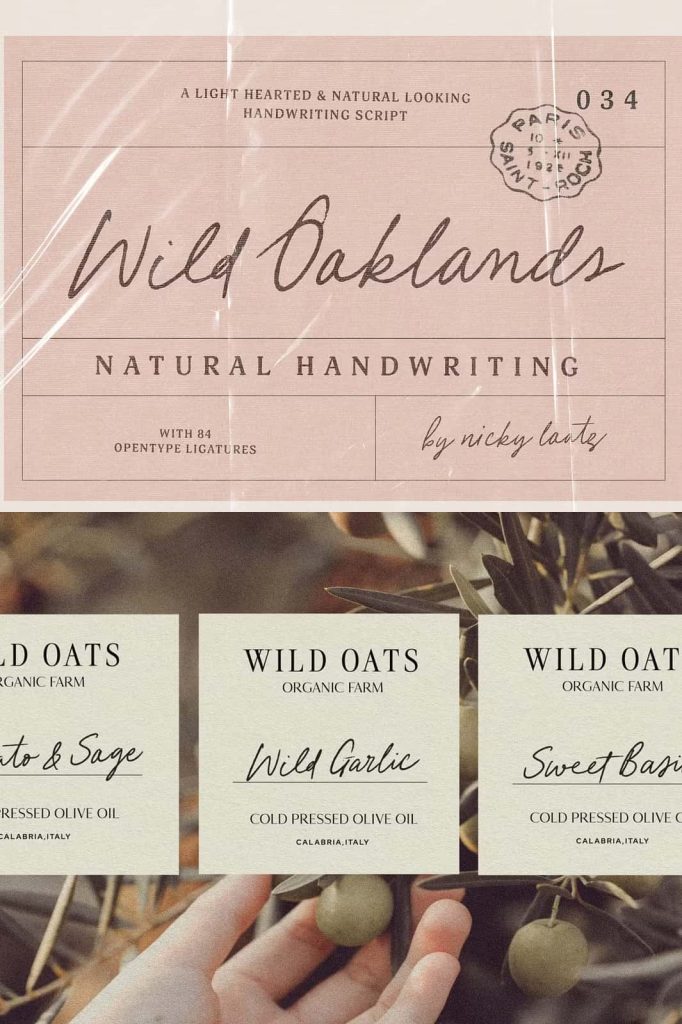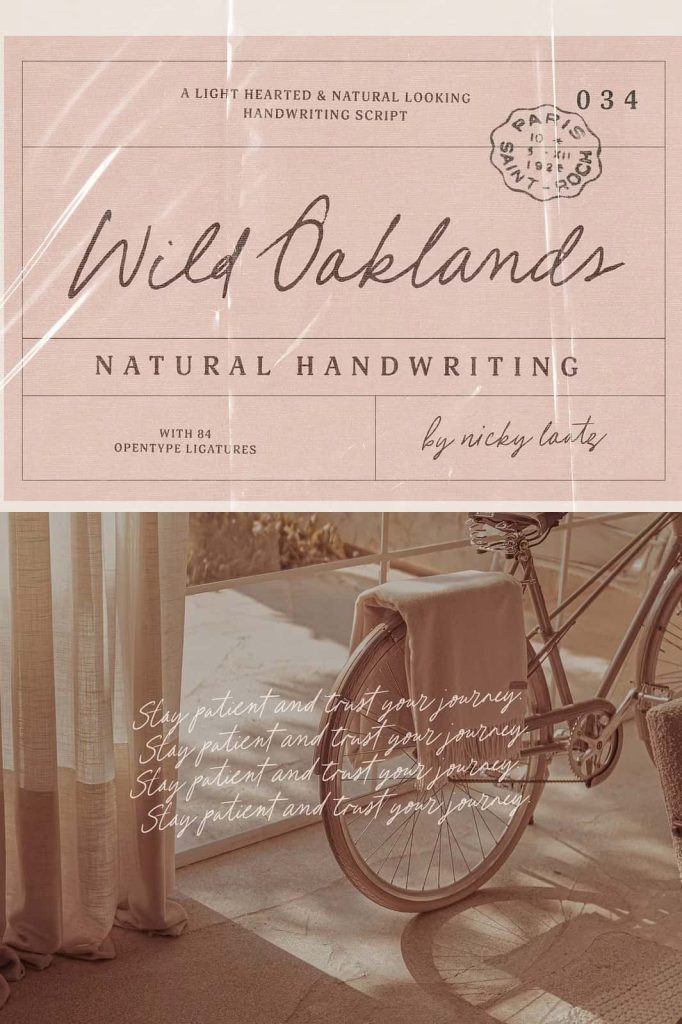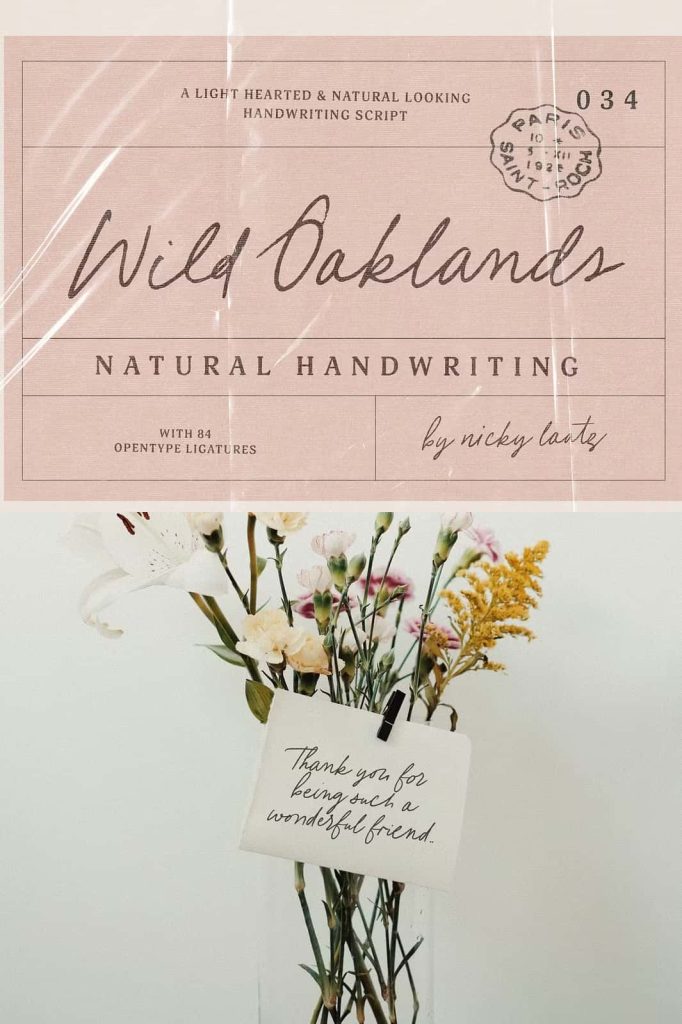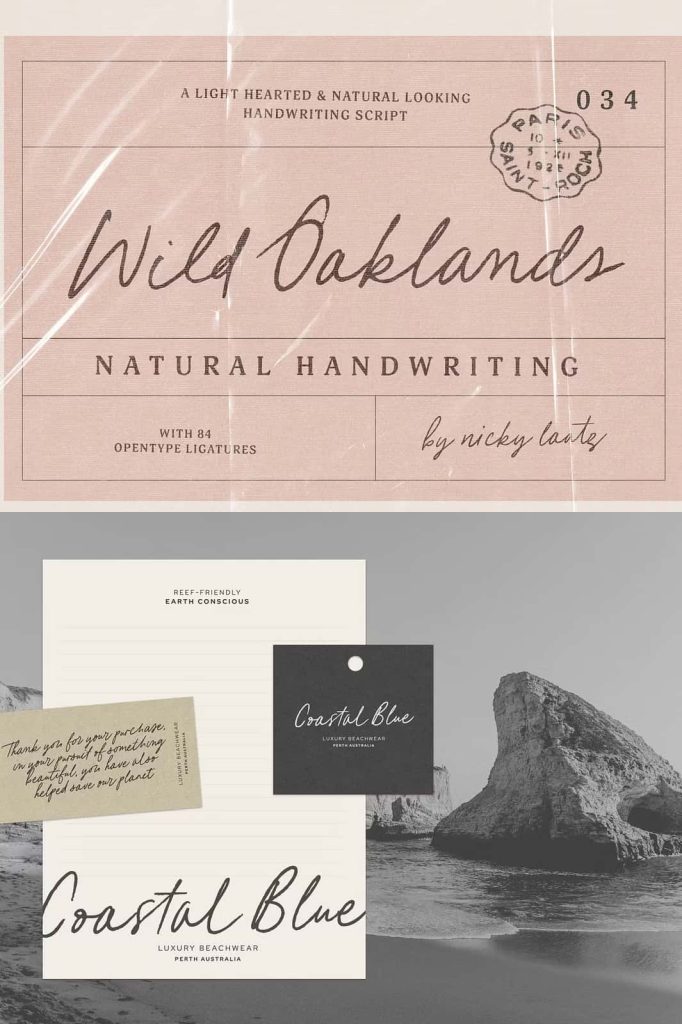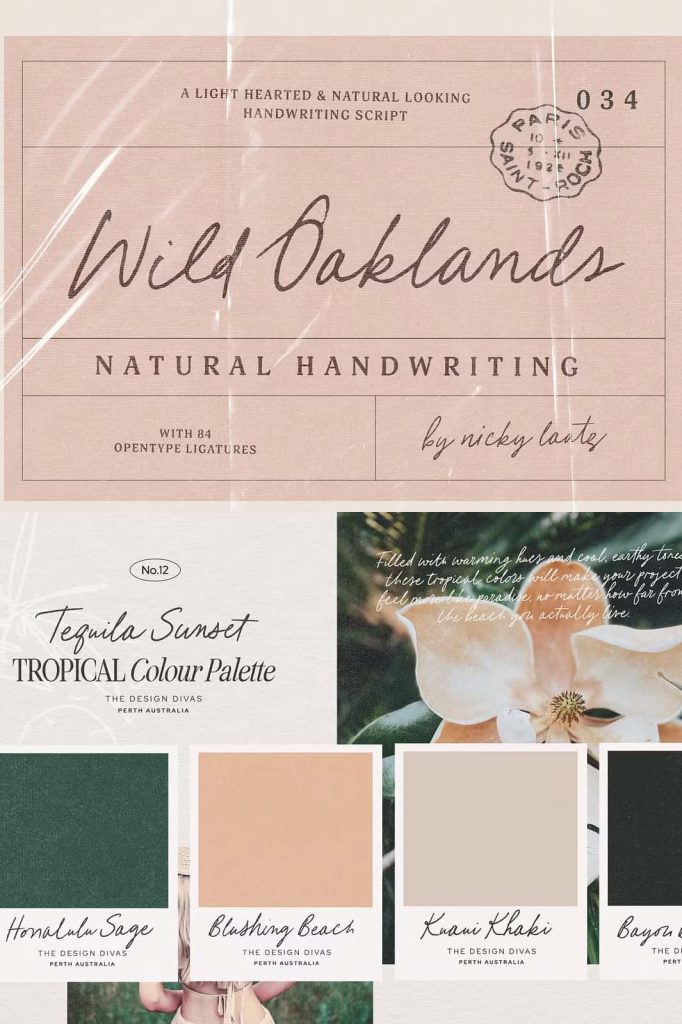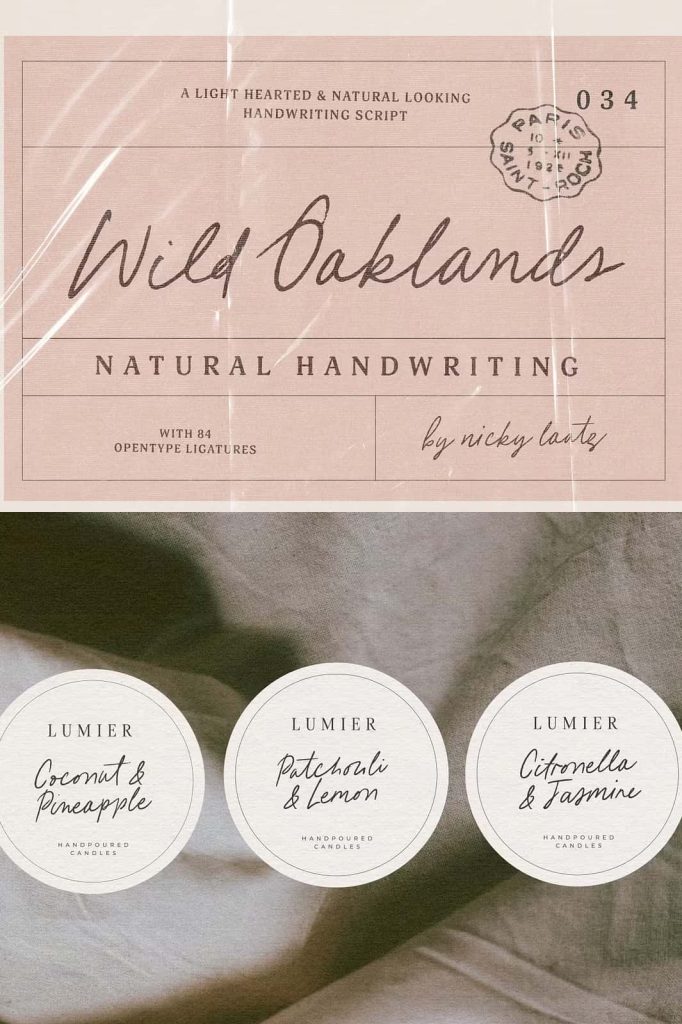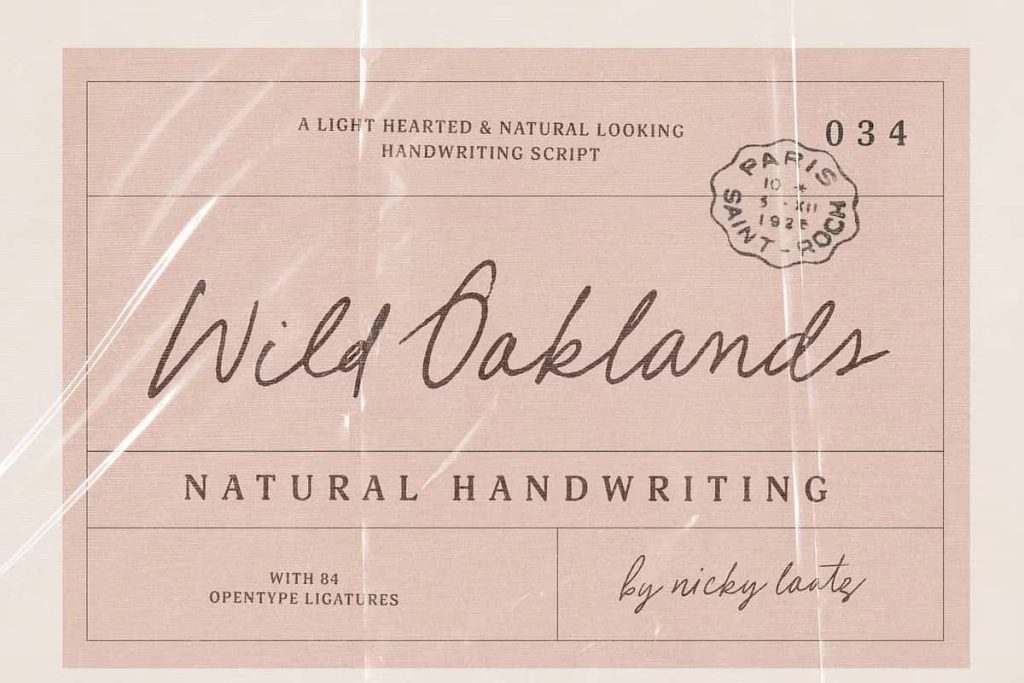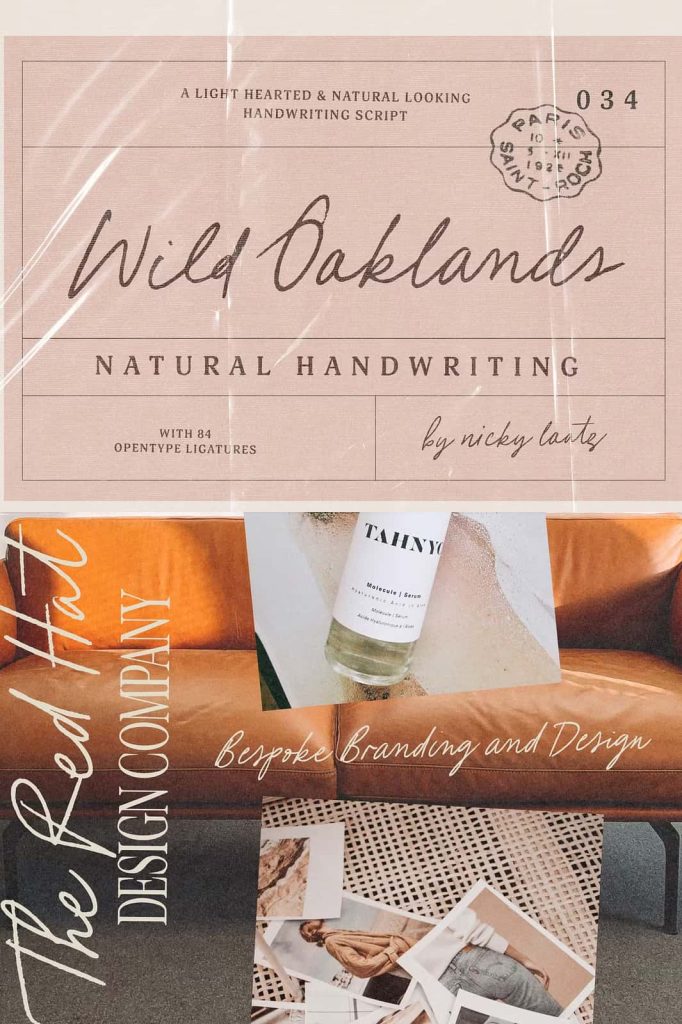
Wild Oaklands Font – A Natural, Handwritten Script with Authentic Inky Character
Wild Oaklands Font is a beautifully imperfect handwritten script that captures the natural flow and rhythm of authentic handwriting. Designed to feel organic, expressive, and personal, this typeface brings a handcrafted charm to every creative project. With its inky texture and 84 carefully crafted OpenType ligatures, Wild Oaklands goes beyond being just a font—it becomes a reflection of genuine handwritten emotion. Whether you’re creating branding, stationery, or digital art, this script typeface gives your design a natural, heartfelt character that stands out.
Bring Natural Handwriting to Life
There’s something timeless and emotional about the look of real handwriting, and Wild Oaklands captures that perfectly. The designer’s goal was to recreate the feeling of pen on paper—carefree, spontaneous, and unfiltered. The result is a script font that feels alive, full of movement and expression. Its slightly uneven strokes and inky textures create visual interest, making it ideal for projects that demand authenticity and warmth.
Unlike mechanical or over-polished fonts, Wild Oaklands celebrates imperfection. Its organic curves, varied stroke widths, and subtle irregularities bring an unmistakable human touch to your work. Every letter flows naturally into the next, giving the illusion of continuous, effortless handwriting. It’s this level of authenticity that makes Wild Oaklands a powerful tool for designers seeking a genuine, handcrafted aesthetic.
Designed for Authenticity and Creative Freedom
Wild Oaklands Font was built with creative freedom in mind. It features 84 OpenType ligatures that automatically replace letter pairs with more natural alternatives. This means that as you type, the font dynamically adjusts to mimic real handwriting patterns—making your text look like it was written by hand rather than digitally produced. Simply ensure that your design software’s “ligatures” feature is turned on, and watch as Wild Oaklands transforms your words with effortless authenticity.
The inky, handcrafted quality of the strokes makes Wild Oaklands versatile and expressive. It works beautifully for branding that wants to appear approachable and artistic, for invitations that need a personal touch, and for quotes or social media posts that require warmth and creativity. It’s also ideal for packaging, lifestyle products, and blog headers that embrace a natural, organic aesthetic.
A Handwritten Script with Character and Soul
Every curve and stroke of Wild Oaklands has been thoughtfully crafted to maintain visual balance while preserving a natural flow. The font’s inky texture adds depth, giving it a handcrafted, slightly messy charm reminiscent of notes written with a fountain pen. Its informal yet elegant appearance makes it flexible enough to fit both casual and sophisticated projects.
Unlike overly structured typefaces, Wild Oaklands thrives on personality. It’s not perfect—and that’s exactly what makes it beautiful. Each imperfection contributes to its realism, making your designs feel more personal and relatable. This organic feel helps establish emotional connections between your work and your audience, making every piece more engaging and memorable.
Perfect for a Wide Range of Design Projects
The versatility of Wild Oaklands Font allows it to enhance a variety of design styles and industries. Its natural flow and warm character make it perfect for:
- Branding and logos – Add personality and authenticity to brand identities.
- Wedding invitations and stationery – Create an elegant yet informal handwritten style.
- Product packaging – Give organic or artisanal brands a handcrafted appeal.
- Social media graphics and quotes – Make words look heartfelt and expressive.
- Blog headers and website design – Add individuality and warmth to your visual storytelling.
- Posters, prints, and apparel – Create eye-catching, personal designs that connect emotionally.
Whether used for short text or full paragraphs, Wild Oaklands maintains readability without losing its expressive flair. The balance between structure and flow makes it suitable for both professional and artistic applications, allowing designers to experiment freely while maintaining harmony and elegance.
Unlock the Magic of Ligatures
One of the most remarkable features of Wild Oaklands is its 84 OpenType ligatures. These unique letter combinations give your text the natural inconsistencies of real handwriting. Instead of repeating identical letter shapes, the font automatically alternates forms for a more authentic, fluid look. For instance, repeated letters like “ll” or “oo” vary in shape, making every word appear naturally written.